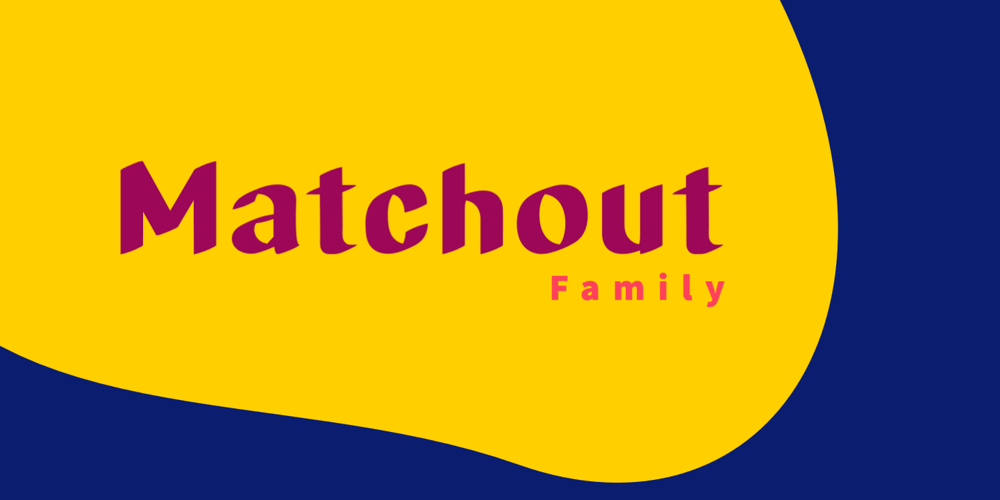
Matchout Font Family was designed by Ari Budi Setiawan and published by Zanfonts. Matchout contains 7 styles and family package options. Matchout is caligraphy sans serif with seven variation weigh, This font is comes in uppercase, lowercase, punctuations, symbols, numerals including basic and advance cyrillic. Matchout can used in various styles, casual, fun and simple letter. You are also worry-free because with more than 323 glyphs every weight, and Support for up to 73 languagesMatchout perfect for branding, websites, quotes, invitation, flyers, greeting cards, poster, education, fun, logo, and marketing purpose